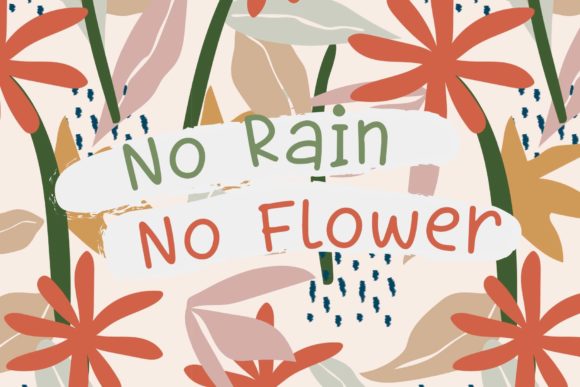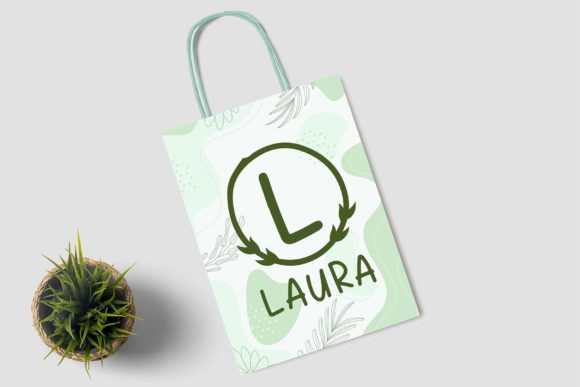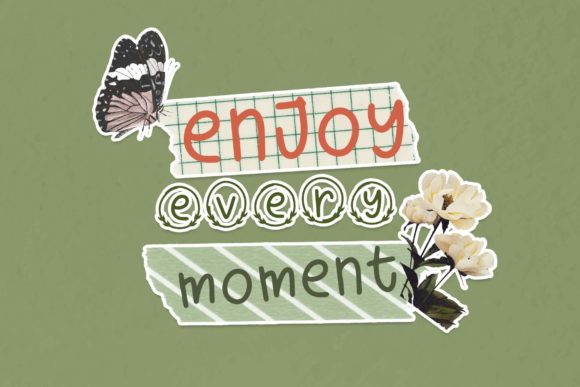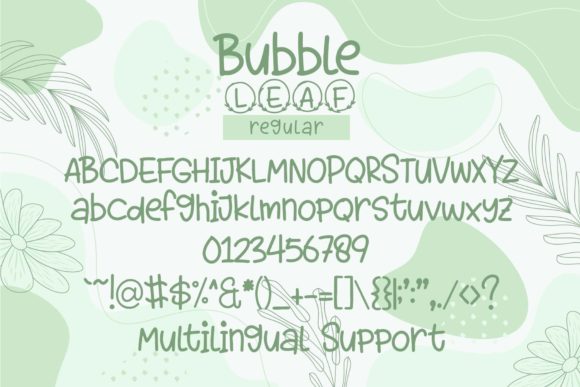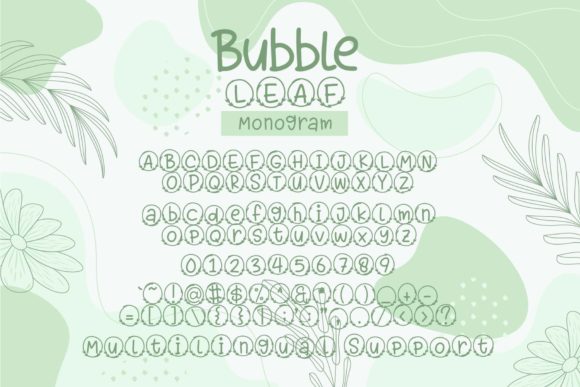
Bubble Leaf Font: Elevate Your Designs with a Touch of Whimsy
In the world of typography, fonts play a crucial role in conveying the tone and personality of a design. For crafters, designers, and DIY enthusiasts, finding the perfect font can make all the difference in creating unique and visually appealing projects. If you’re on the hunt for a font that exudes playfulness and charm, look no further than the Bubble Leaf Font. This handwritten and decorative duo font is specifically designed for those who adore monograms, crafting, and adding a personal touch to their creations.
What is Bubble Leaf Font?
Bubble Leaf Font is a delightful, handwritten duo font that consists of two complementary fonts. Its whimsical and curly design makes it perfect for a variety of creative projects, from crafting and scrapbooking to monogramming and DIY signage. The font’s playful, bubbly aesthetic is sure to add a touch of personality to any design, making it an excellent choice for those who want to create one-of-a-kind projects.
Key Features of Bubble Leaf Font
- Handwritten and Decorative: Bubble Leaf Font boasts a beautiful, handwritten design with decorative elements that add a touch of elegance to any project.
- Duo Font: The font comes in two complementary styles, allowing you to mix and match to create visually appealing combinations.
- Perfect for Monograms: The font’s design is ideal for creating stunning monograms, making it a great choice for personalized gifts, crafts, and DIY projects.
- Cute and Whimsical: The Bubble Leaf Font’s playful aesthetic makes it perfect for crafting, scrapbooking, and other creative projects that require a touch of whimsy.
Uses for Bubble Leaf Font
The versatility of Bubble Leaf Font makes it suitable for a wide range of creative projects, including:
- Crafting: Use the font to create personalized crafts, such as customized cards, gift tags, and DIY decorations.
- Scrapbooking: Add a touch of personality to your scrapbook pages with the Bubble Leaf Font’s playful design.
- Monogramming: Create beautiful monograms for personalized gifts, towels, and other items.
- Signage: Use the font to create eye-catching signs for parties, events, or DIY projects.
- Digital Designs: Incorporate the Bubble Leaf Font into your digital designs, such as social media graphics, blog posts, and website headers.
Tips for Using Bubble Leaf Font
To get the most out of the Bubble Leaf Font, consider the following tips:
- Experiment with Pairings: Try pairing the Bubble Leaf Font with other fonts to create unique and visually appealing combinations.
- Play with Colors: Experiment with different colors and textures to add depth and interest to your designs.
- Add Decorative Elements: Use the font’s decorative elements to add a touch of personality to your designs.
- Keep it Simple: Don’t be afraid to keep your design simple and let the font be the focal point.
In conclusion, the Bubble Leaf Font is a versatile and charming duo font that’s perfect for crafters, designers, and DIY enthusiasts. Its whimsical design and decorative elements make it an excellent choice for creating unique and visually appealing projects. Whether you’re looking to create personalized gifts, add a touch of personality to your scrapbook pages, or design eye-catching signs, the Bubble Leaf Font is sure to become a favorite in your design arsenal. So why wait? Download the Bubble Leaf Font today and start elevating your designs with a touch of whimsy!